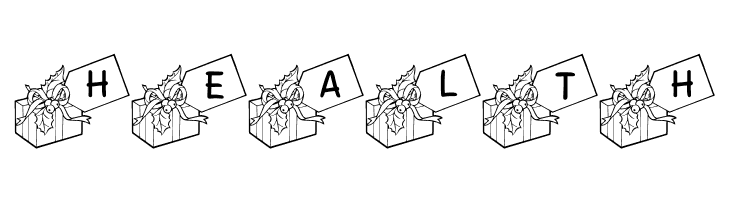
2Peas Gift Font
Font by www.twopeasinabucket.com
A playful, hand-drawn font with a stamp-like effect and irregular edges.
Grim Natwick Betty Boop Font
Font by bob istheowl http://luc.devroye.org/bobistheowl.html
Whimsical cartoon character with bold black and white styling.
THE GIFTED Font
Font by
spideraysfonts
A bold, futuristic font with geometric shapes and segmented elements.
Rothenburg Decorative Normal Font
An ornate and decorative typeface with a medieval or gothic style.
Anger is a gift Font
Font by Jacob Fisher - www.pizzadude.dk
A modern, dot-based font with a digital and futuristic aesthetic.
Gift Wrapped Font
A decorative serif font with intricate bow embellishments for a festive look.
Christmas Gift Font
A playful, hand-drawn font with irregular strokes and a whimsical style.
Autumn Gifts Font
A decorative font with intricate autumnal motifs and natural elements.
GrimNatwickBettyBoop Font
Font by bob istheowl http://luc.devroye.org/bobistheowl.html
Playful, vintage cartoon-inspired font with bold, rounded shapes.
GiftWrap Font
A bold, decorative font with a unique diagonal striped pattern.
GrimNatwickBetty Font
Font by bob istheowl http://luc.devroye.org/bobistheowl.html
A whimsical, cartoon-style display font with playful curves.
Gifty Liebe Demo Font
Font by
glyphstyle
A playful, hand-drawn font with a whimsical and friendly style.
Gift Of Love Font
Font by 7NTypes
A playful, hand-drawn font with bold, irregular characters and exaggerated serifs.
Gifty Glory Font
Font by Hatf Type
A bold, playful font with a hand-drawn, cartoonish style.
Bright Giftak Font
Intellecta Design
JLR Gift Tags Font
A decorative font with letters encased in gift box illustrations, perfect for festive designs.
fonts-lab gift Font
fonts-lab.com/
A playful, casual handwritten font with smooth, flowing curves.
101! Gift Font
Nght's Place - www.crosswinds.net/~nghtmvs/font/fonts1.html
A decorative font with bold uppercase letters inside gift box designs.
GiftExchange Font